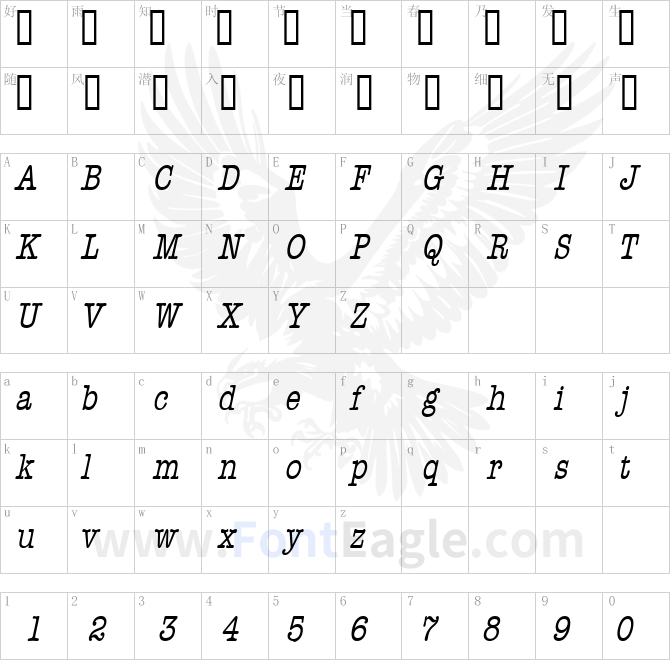
Headline Thin Italic.ttf Base Font Information
- Font name:Headline Thin
- Font Subfamily ID:Altsys Fontographer 4.1 Headline Thin Italic
- Font Full Name:Headline Thin Italic
- Font Version:Altsys Fontographer 4.1 1/5/95
- Postscript:HeadlineThinItalic